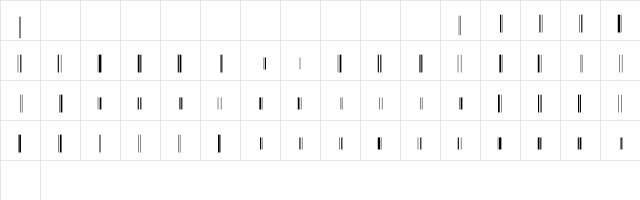
EanBwrP36xTt Normal
Design Context for EanBwrP36xTt Typeface
EanBwrP36xTt is a composed and adaptable typeface that performs quietly and consistently across a wide range of design contexts.